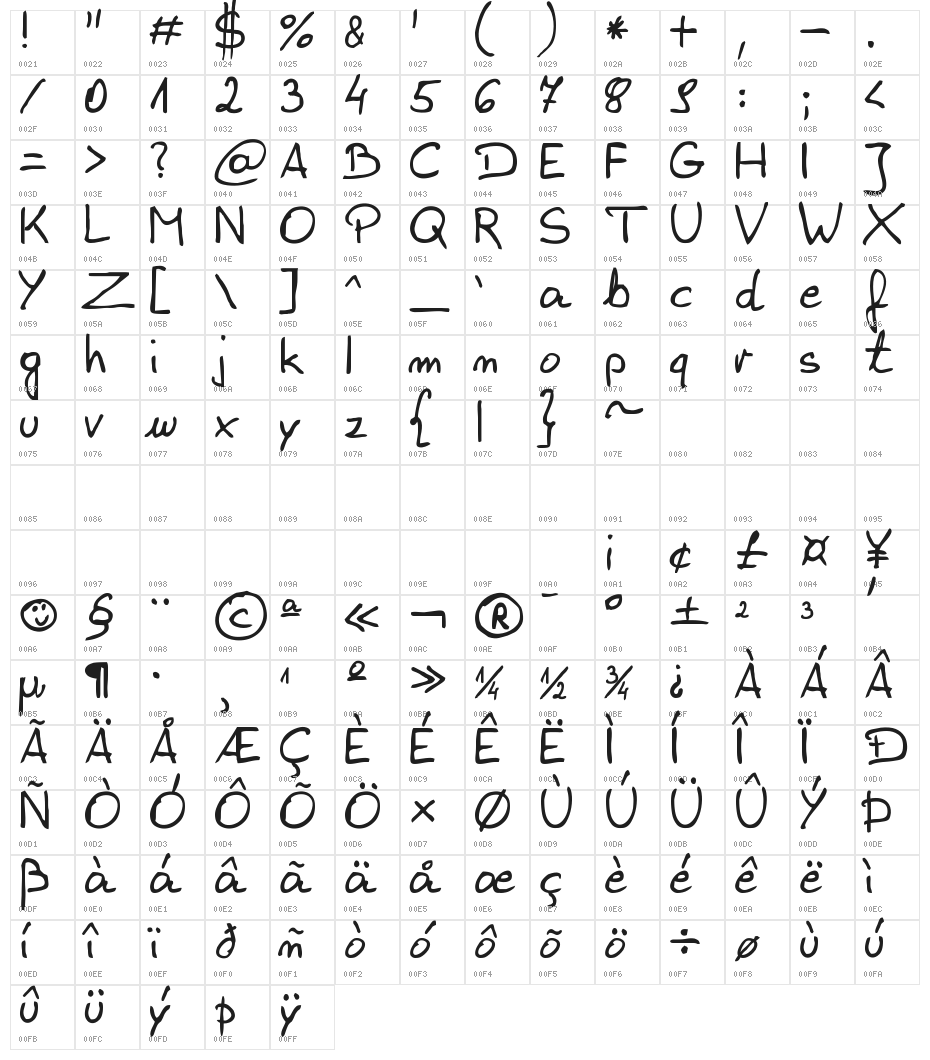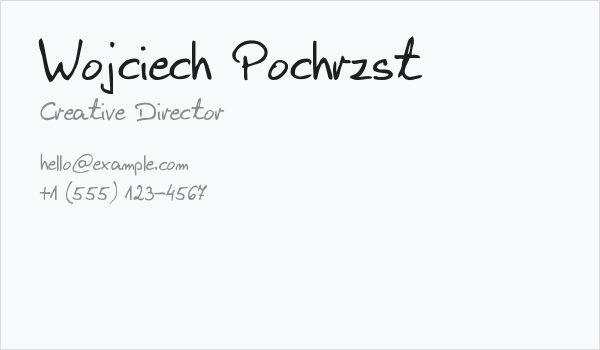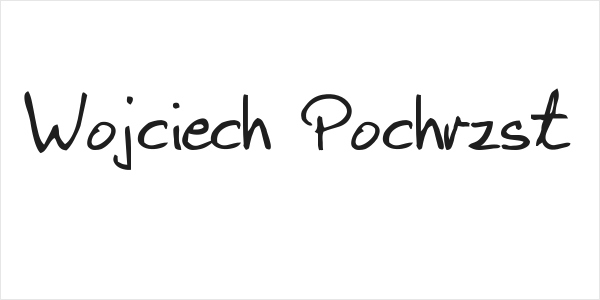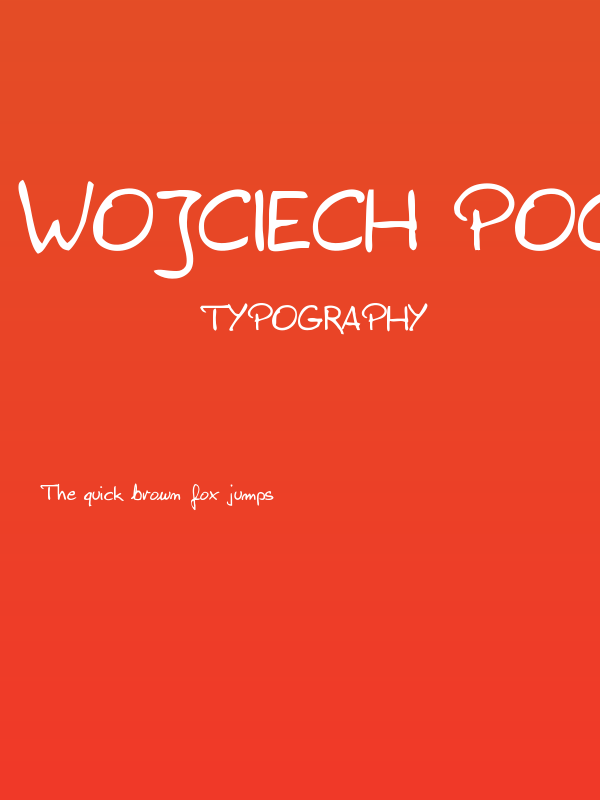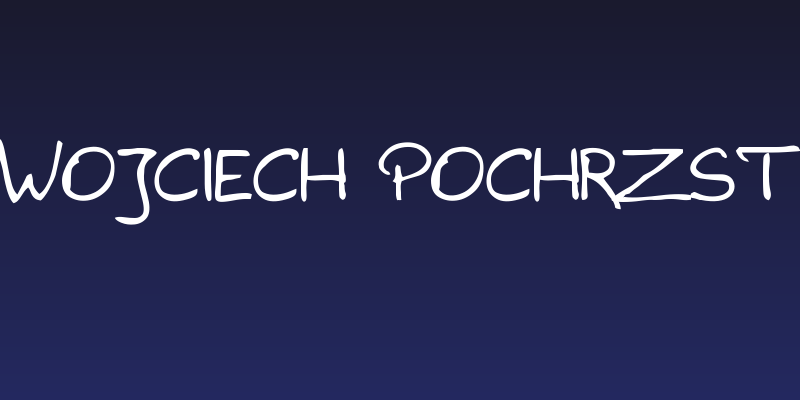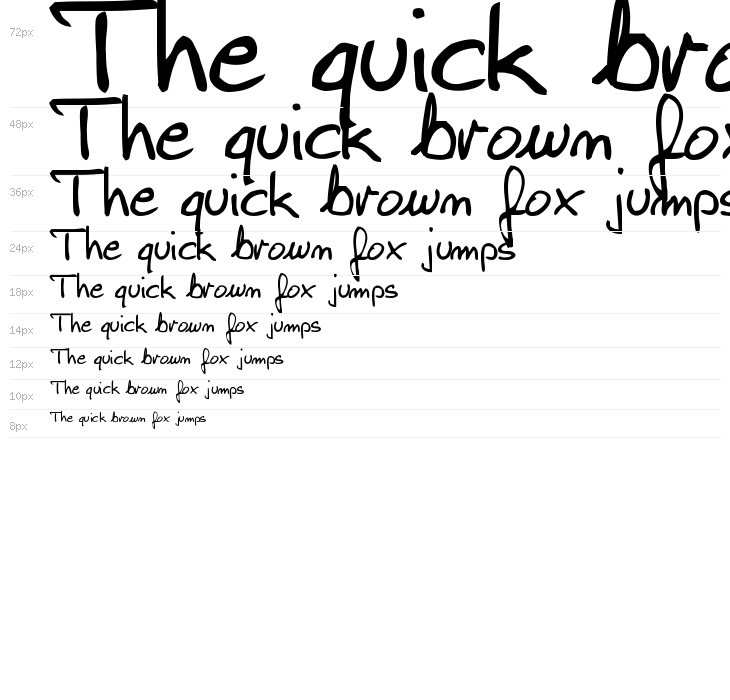
Wojciech Pochrzst Font
Wojciech Pochrzst Description
This font exhibits a playful and informal handwritten style, characterized by its fluid and dynamic strokes. The uppercase letters are bold and slightly irregular, giving a sense of spontaneity and creativity. The lowercase letters maintain a consistent flow, with some characters featuring unique loops and curves that add to the font's charm. The numerals are distinct and easy to read, while the special characters complement the overall aesthetic with their quirky design. This font's lively appearance makes it suitable for projects that require a personal touch or a casual vibe.
| Overall Style | Casual and Creative |
| Use Case | Headlines, Invitations, Branding |
| Proposed Projects | Ideal for greeting cards, children's books, casual branding, and social media graphics. |